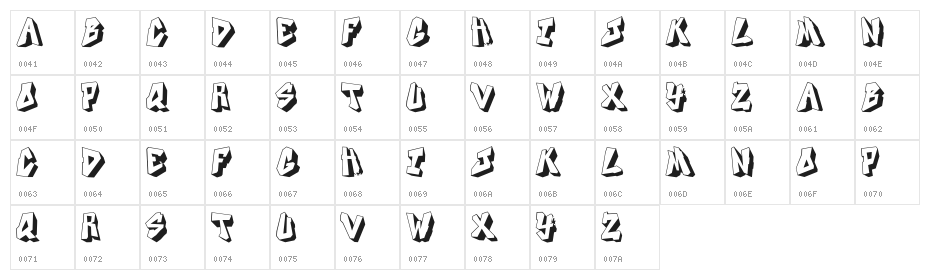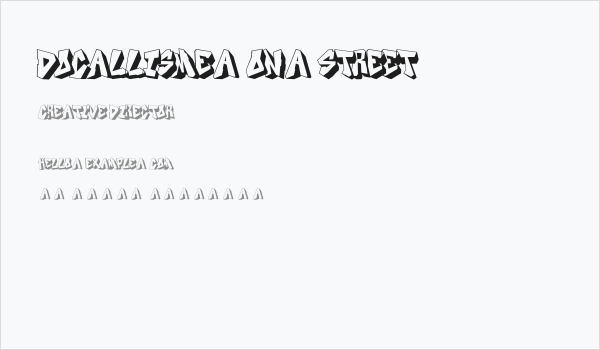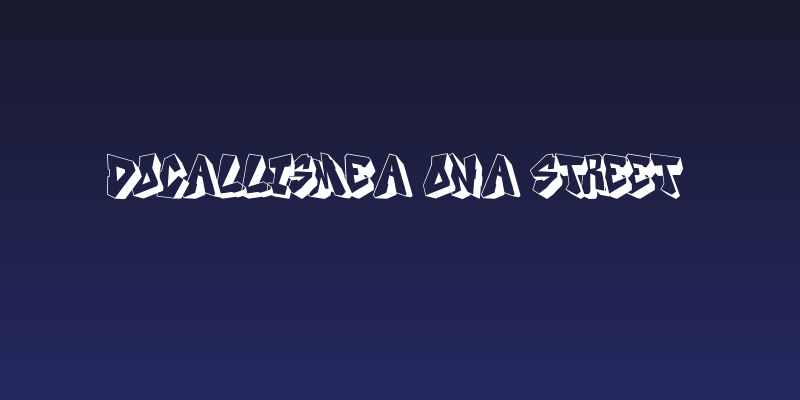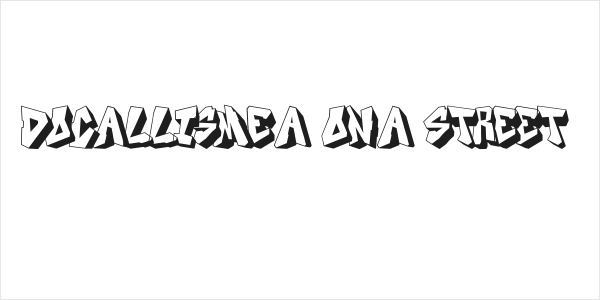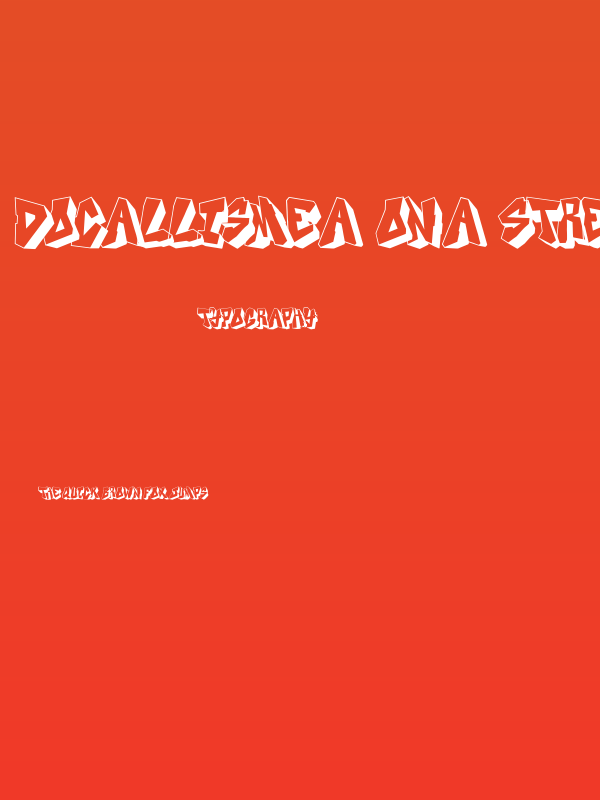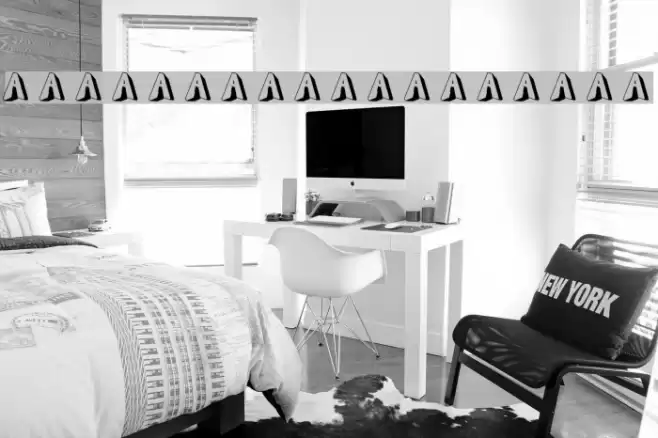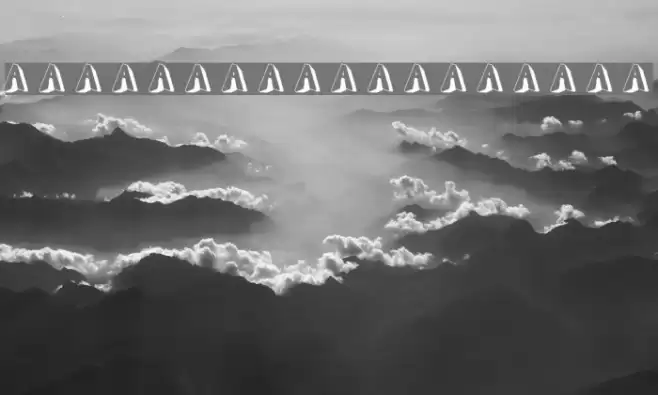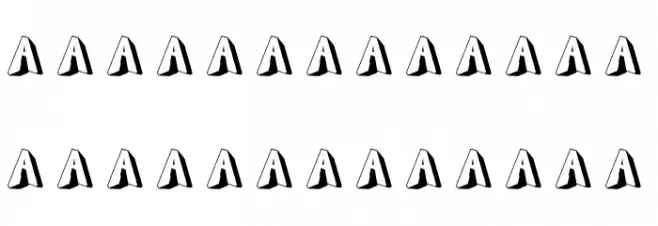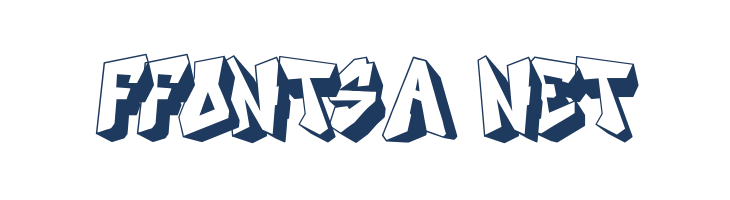
DOCALLISME-ON-STREET Font
DOCALLISME-ON-STREET Description
This design features a repeated pattern of a stylized letter 'A', showcasing a bold and artistic approach. The letter is designed with a strong contrast between the black and white sections, creating a striking visual impact. The design is consistent throughout, with each 'A' maintaining the same shape and style, emphasizing a sense of uniformity and rhythm. The use of shadowing gives a three-dimensional effect, adding depth and interest to the overall appearance. This pattern is ideal for decorative purposes, offering a modern and edgy aesthetic.